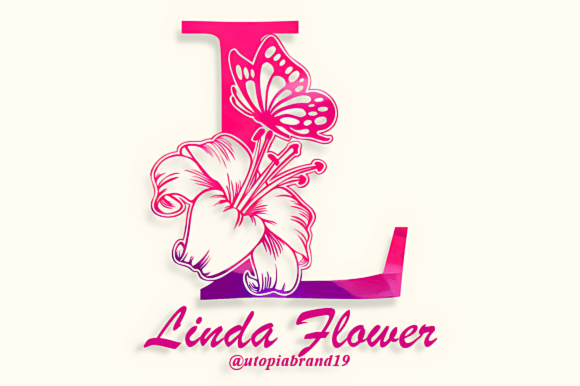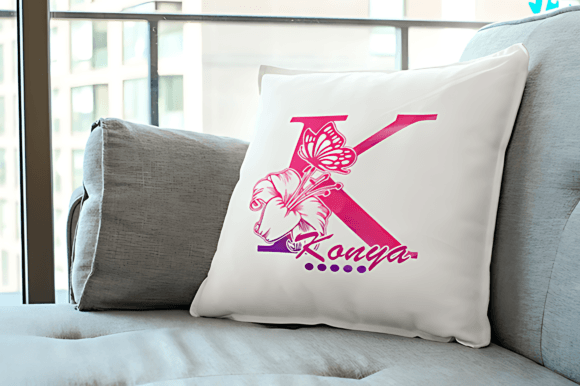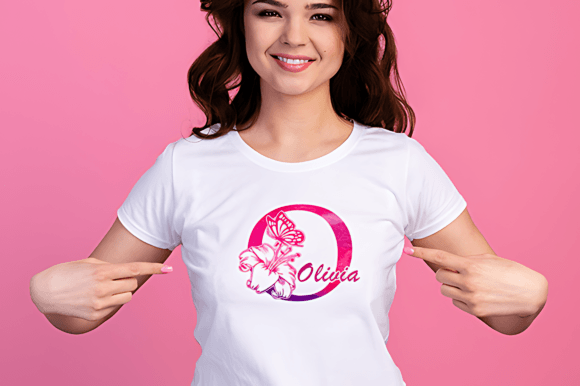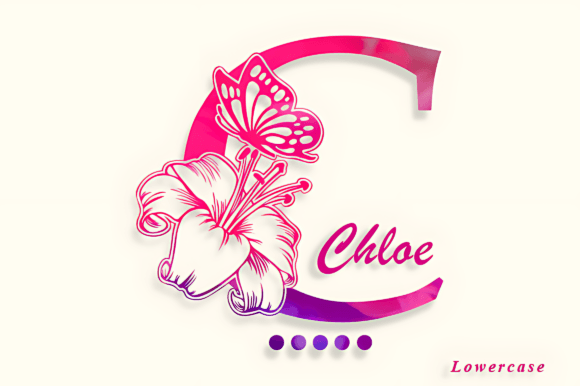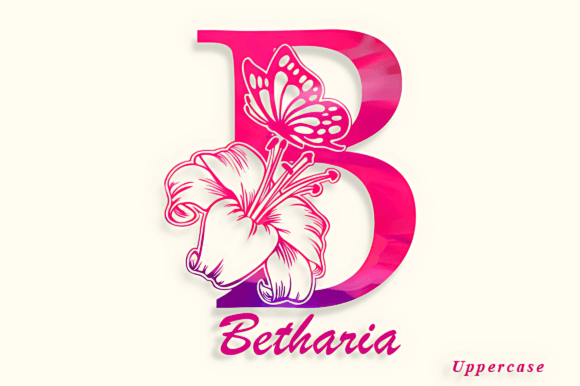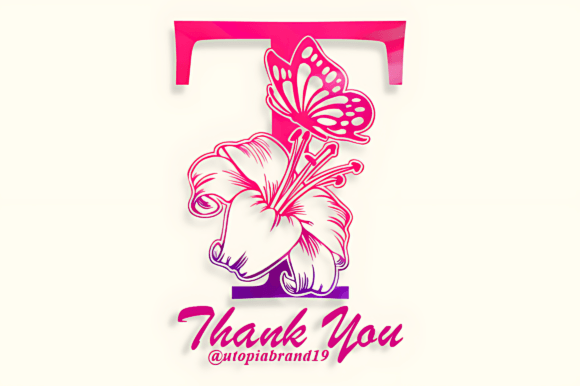
Linda Flower Monogram Font
Immerse yourself in the enchanting world of Linda Flower Monogram, an elegant typeface that effortlessly intertwines sophistication and charm. This meticulously crafted font blooms with a unique character, elevated further by ornate flourishes.
Linda Flower Monogram is the ideal brush stroke to paint your love story on wedding invitations, add a distinctive class to your digital stationery, or create engaging social media posts that are hard to miss. This font also lends its polished lines to heartfelt greeting cards, resulting in designs that are not only visually stunning but also brimming with sentiment.
Enter the captivating world of Linda Flower Monogram, a realm where grace dances with charm in each and every delicate stroke.